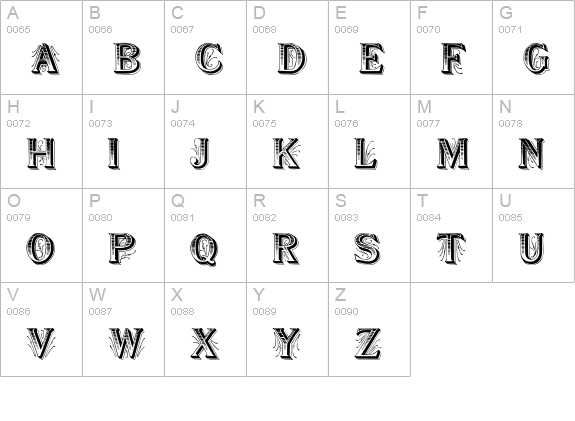
Introducing Showboat font, a stunning display typeface that effortlessly captures the essence of vintage lettering with a modern twist. This unique font is designed to evoke a sense of nostalgia and charm, making it ideal for a wide range of creative projects. With its beautifully handcrafted letterforms, Showboat font exudes a timeless elegance that will instantly elevate any design. Whether you're creating invitations, posters, logos, or branding materials, this font will add a touch of sophistication and personality to your work. One of the best aspects of Showboat font is that it is freely available to download at FontsMarket.com. This means you can easily access and utilize this remarkable font without any cost or restrictions. It's a fantastic opportunity for designers and creatives to enhance their projects with a high-quality font that doesn't break the bank. The versatility of Showboat font is another reason why it stands out among other typefaces. It offers a range of alternate characters and ligatures, allowing you to customize and experiment with different styles and looks. Whether you prefer a more classic and refined aesthetic or a playful and whimsical vibe, this font has you covered. The attention to detail in Showboat font is truly remarkable. Each letter is meticulously crafted, ensuring a seamless and visually pleasing flow. The result is a typeface that is not only visually stunning but also highly legible, making it a fantastic choice for both print and digital applications. So, if you're in need of a captivating and versatile font that will make your designs shine, look no further than Showboat font. Remember, it's freely available to download at FontsMarket.com, giving you the opportunity to add a touch of vintage charm to your projects without any cost. Don't miss out on this amazing font that will undoubtedly elevate your design game to new heights.